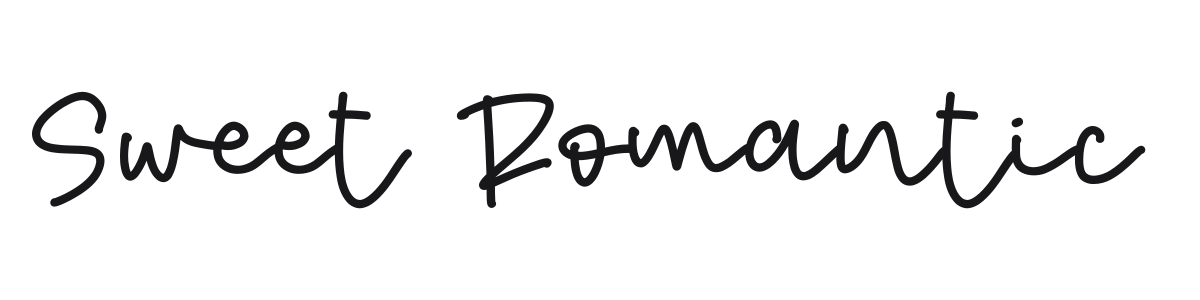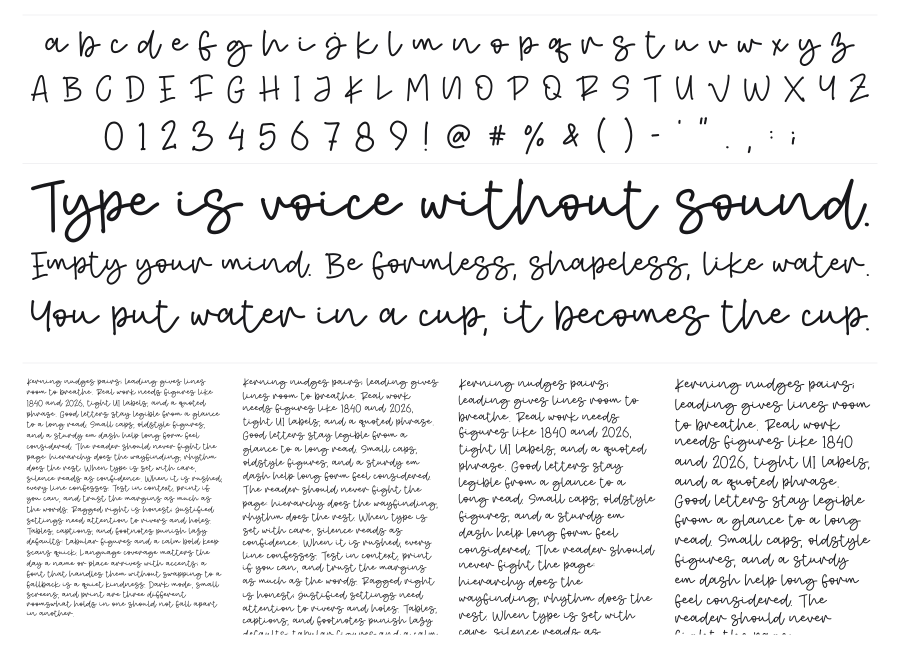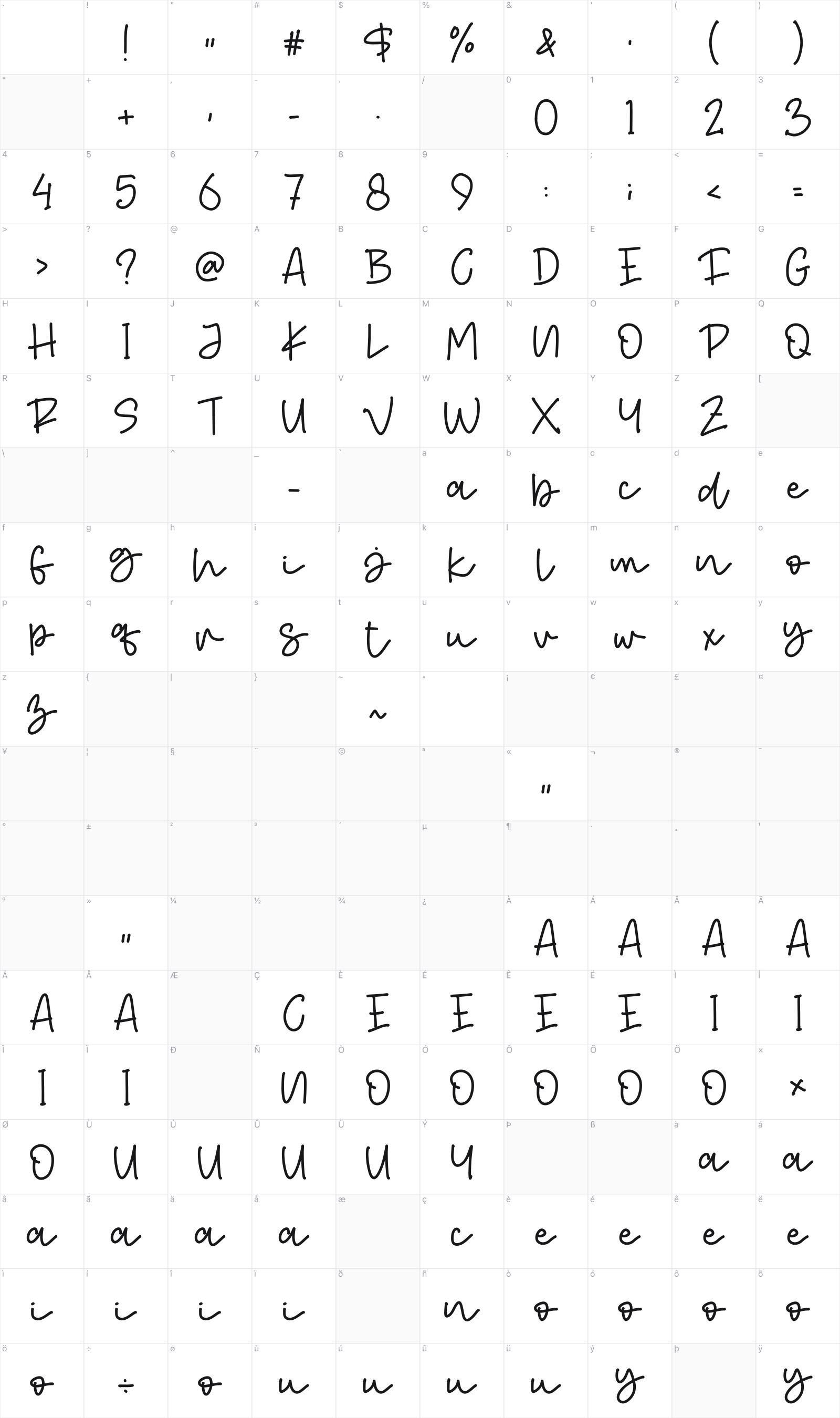
Sweet Romantic
Sweet Romantic is a flowing casual script from Letterafa with continuous looping strokes and a breezy handwritten rhythm. The light monoweight lines and bouncy baseline give it an effortlessly personal feel that works well in branding, packaging, and social media graphics. It leans romantic without feeling stiff.